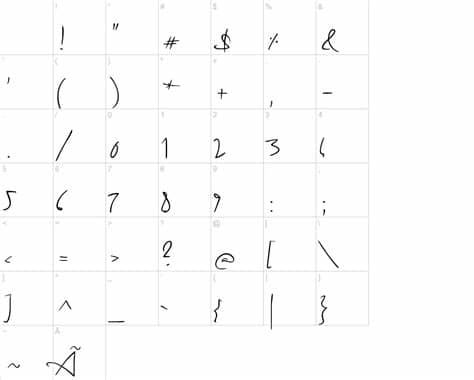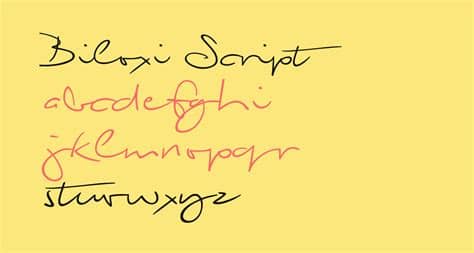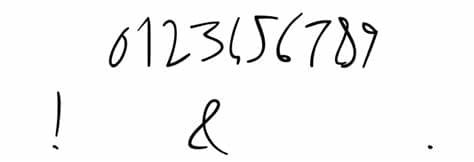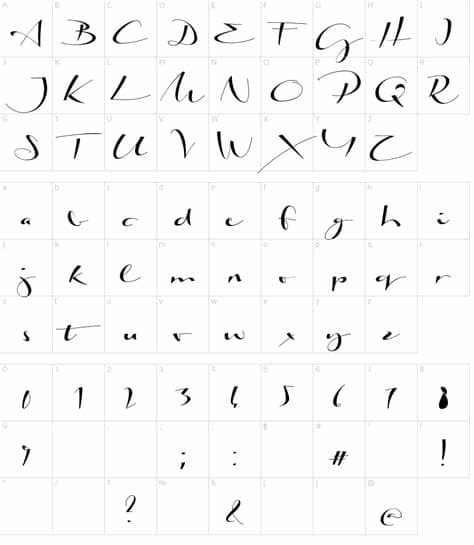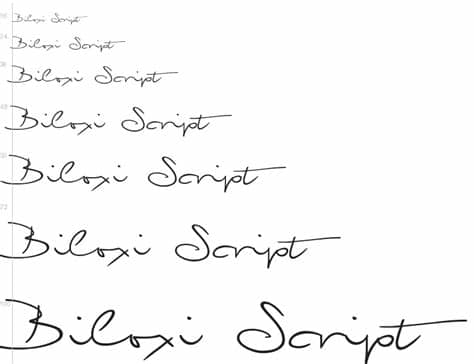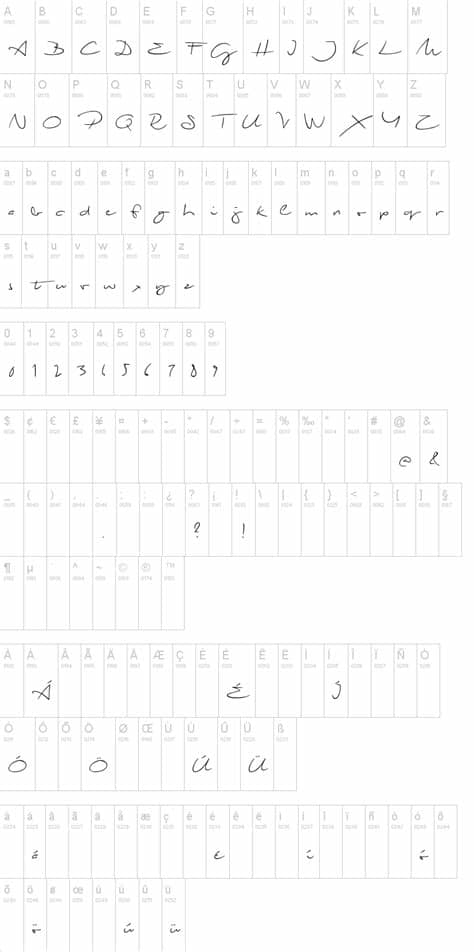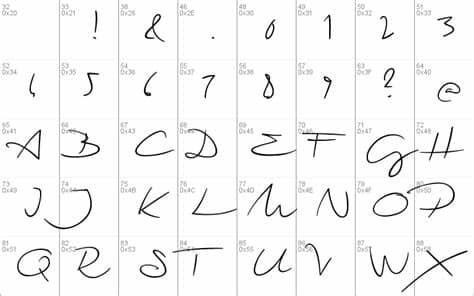
Roland huse biloxi script v2 this font is free for personal use only. Also if you have character / language extension requests, any questions or feedback. ✔️ this font has been downloaded 2,000+ times. Biloxi script is free for personal use only. Biloxi script was designed by roland huse. For commercial use please donate or contact me via email protected. It is a script font created in 2015 and has been downloaded 9,669 times. The author works at company roland huse. Please, talk with the author for commercial use or for any support. 1001 free fonts offers a huge selection of free fonts. Download the biloxi script font by runes & fonts. Biloxi script is the perfect font for all your fun designs. Download free fonts for windows and macintosh.
Biloxi script is free for personal use only. Download and install the biloxi script font for free from ffonts.net. Biloxi script is a casual handwritten script i made up. Download free fonts for mac, windows and linux. Home » illustrator fonts » biloxi script font download.